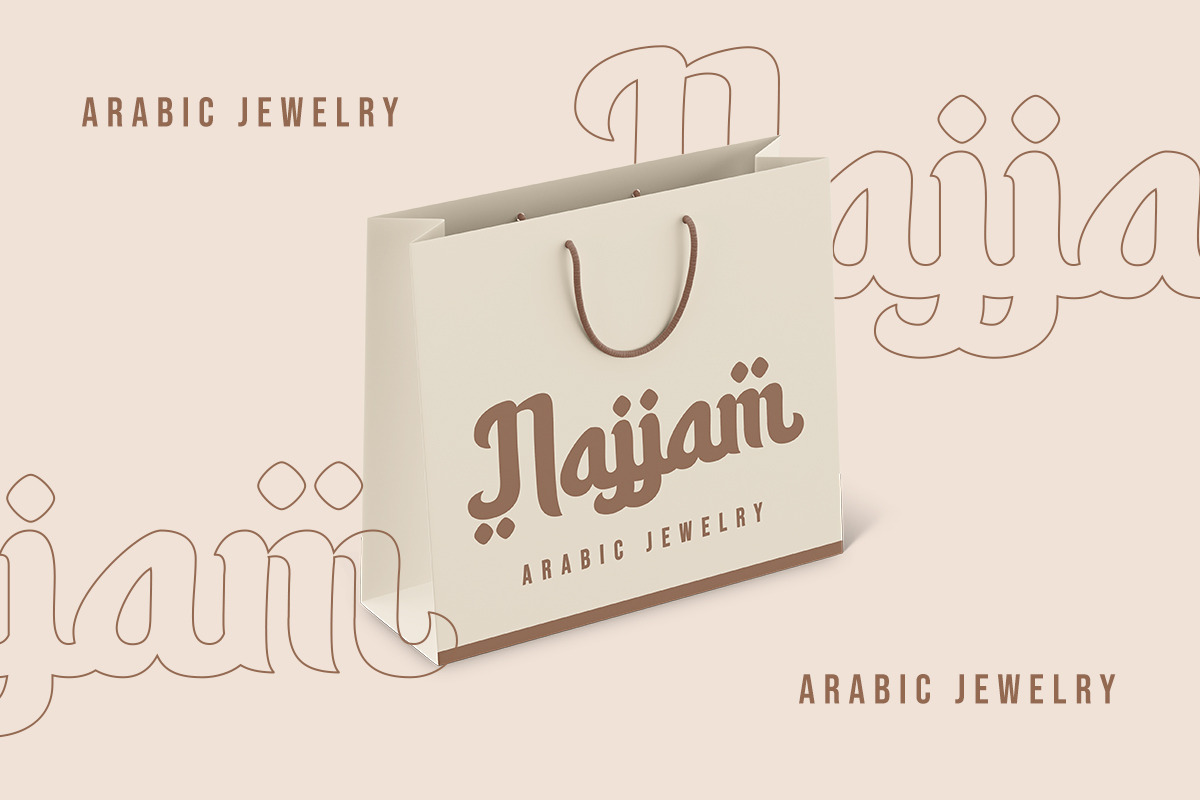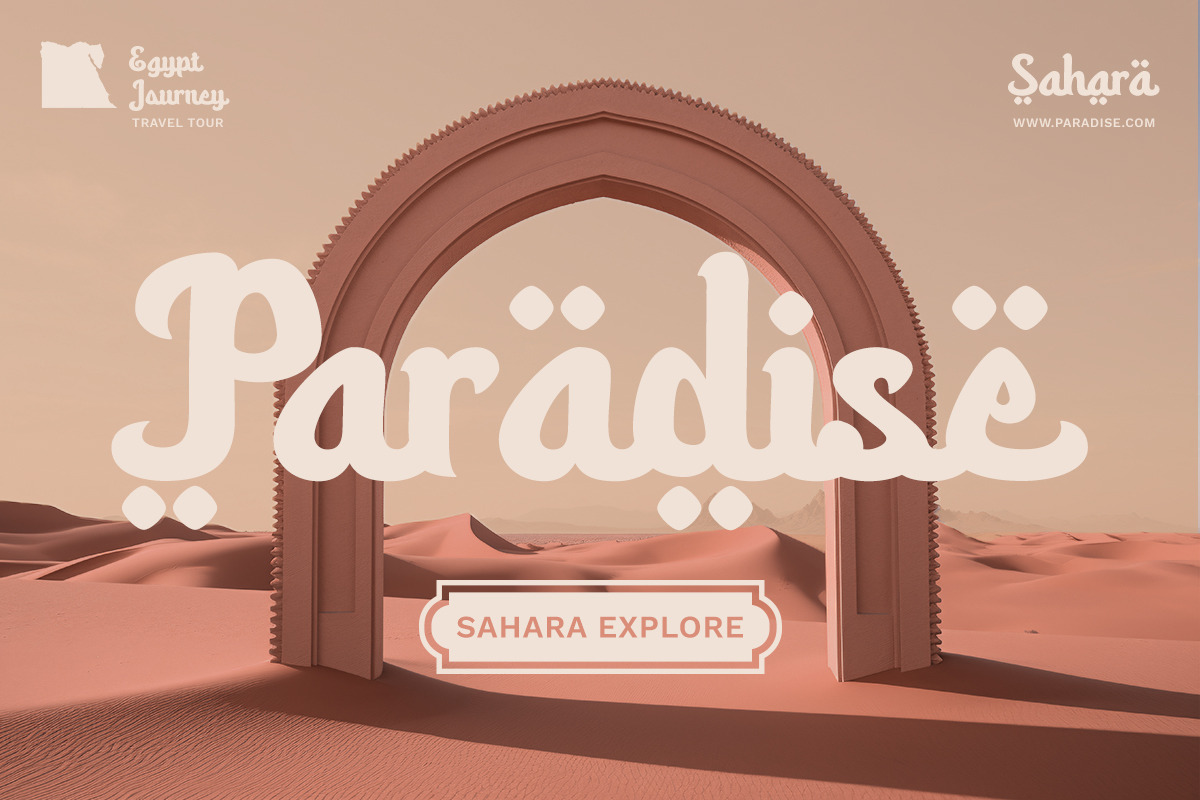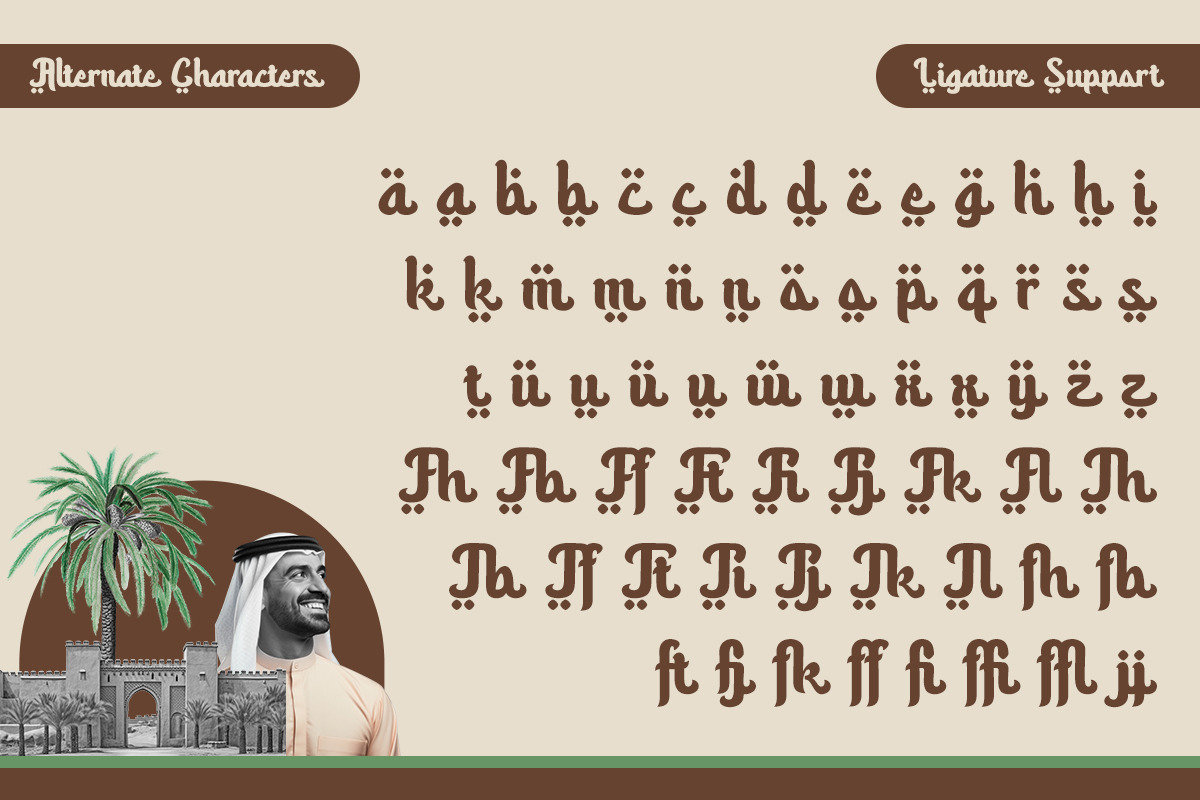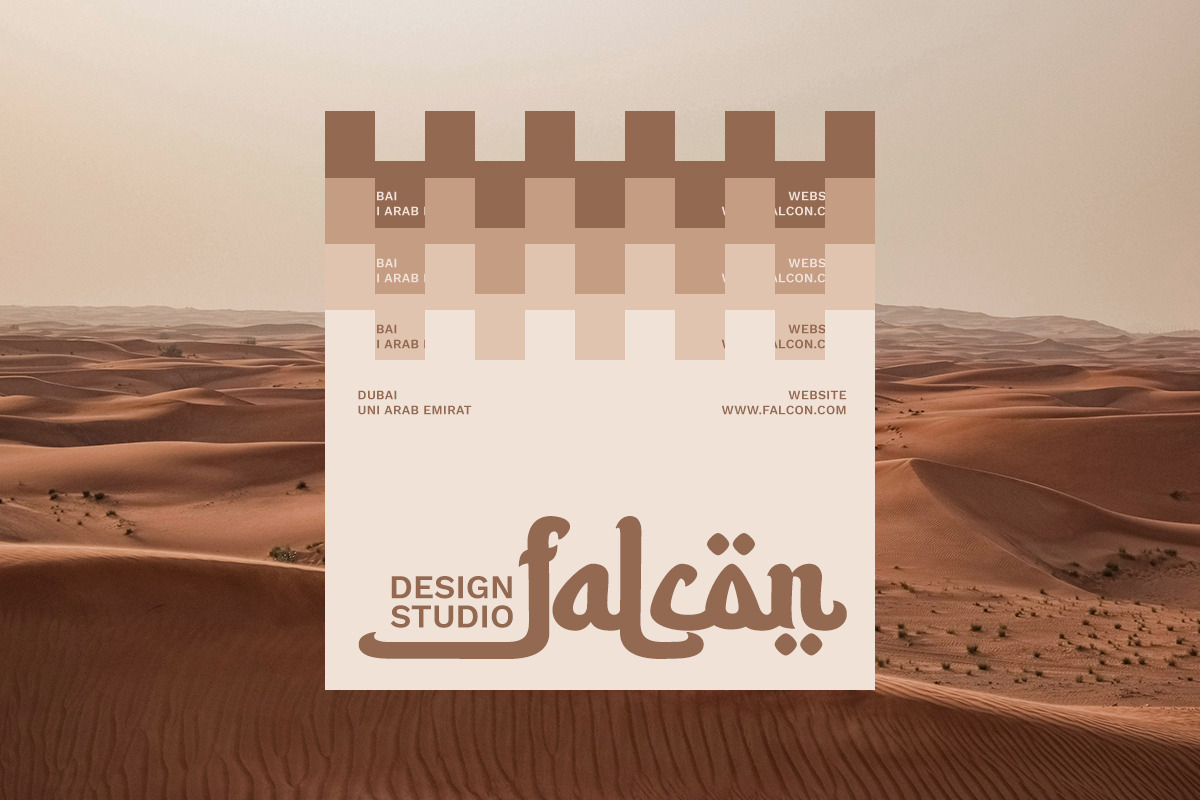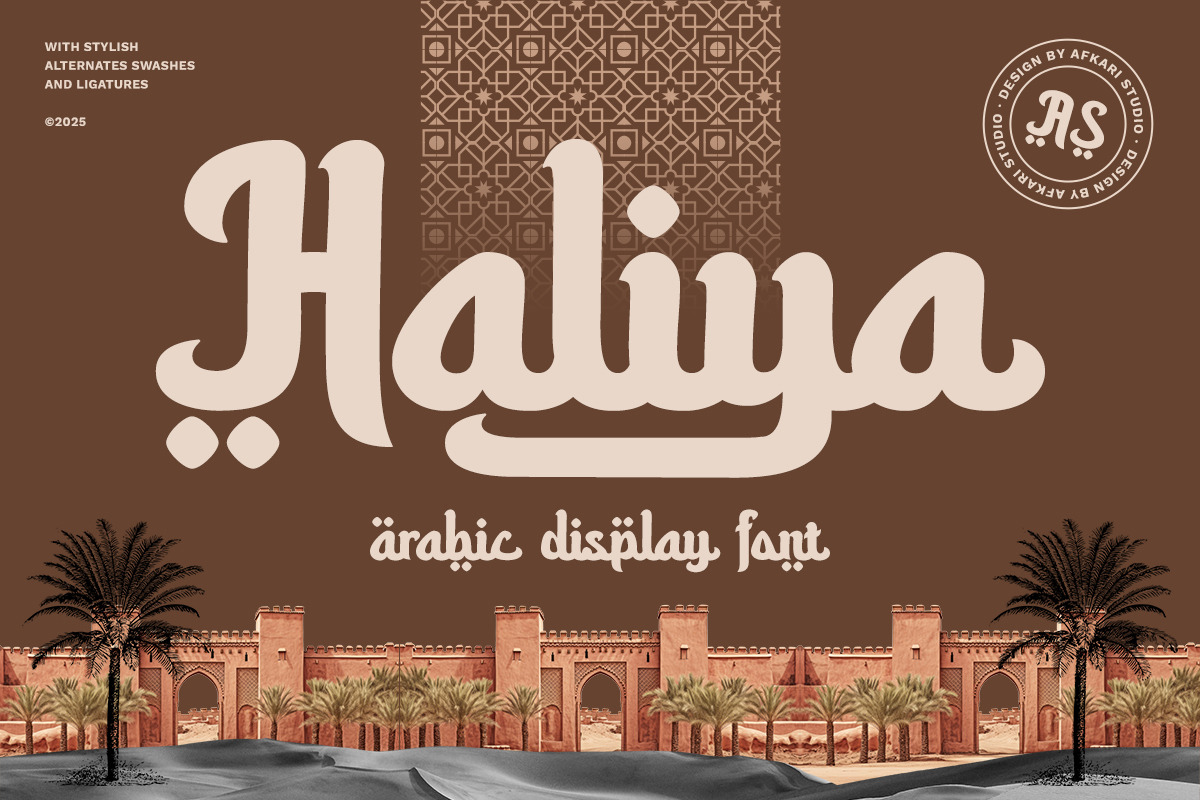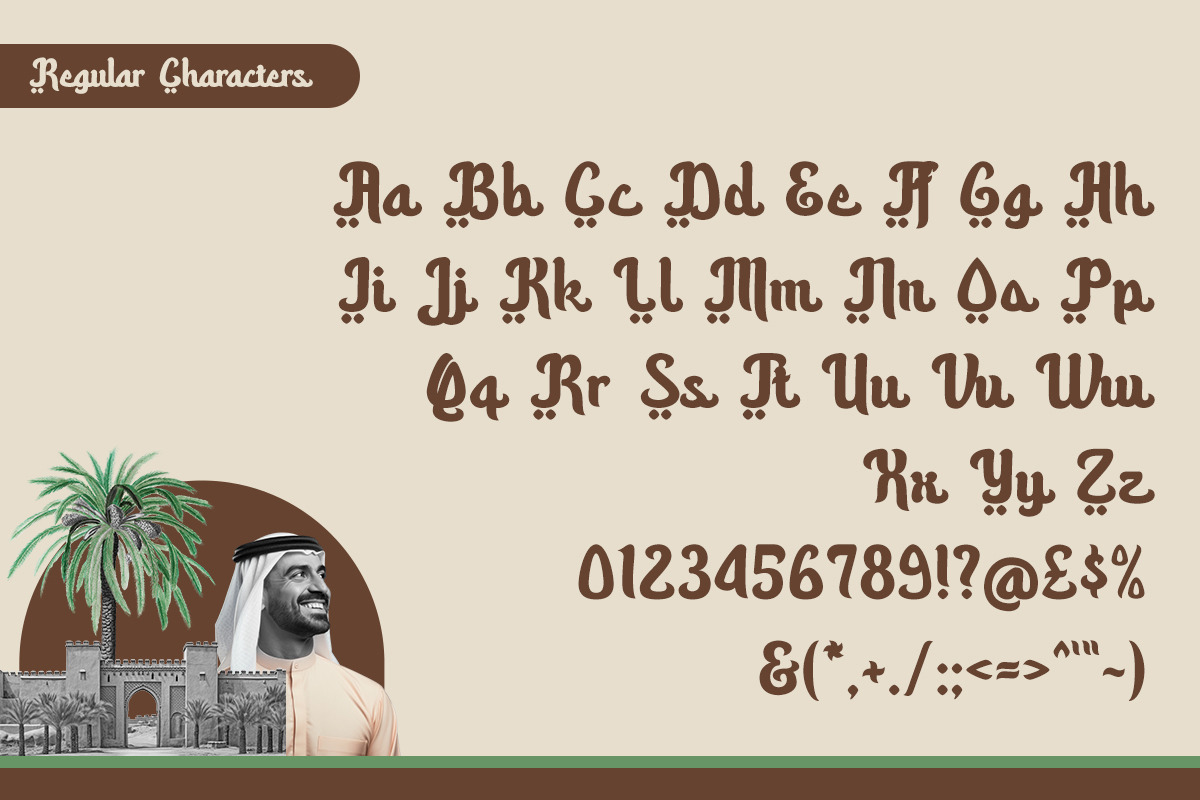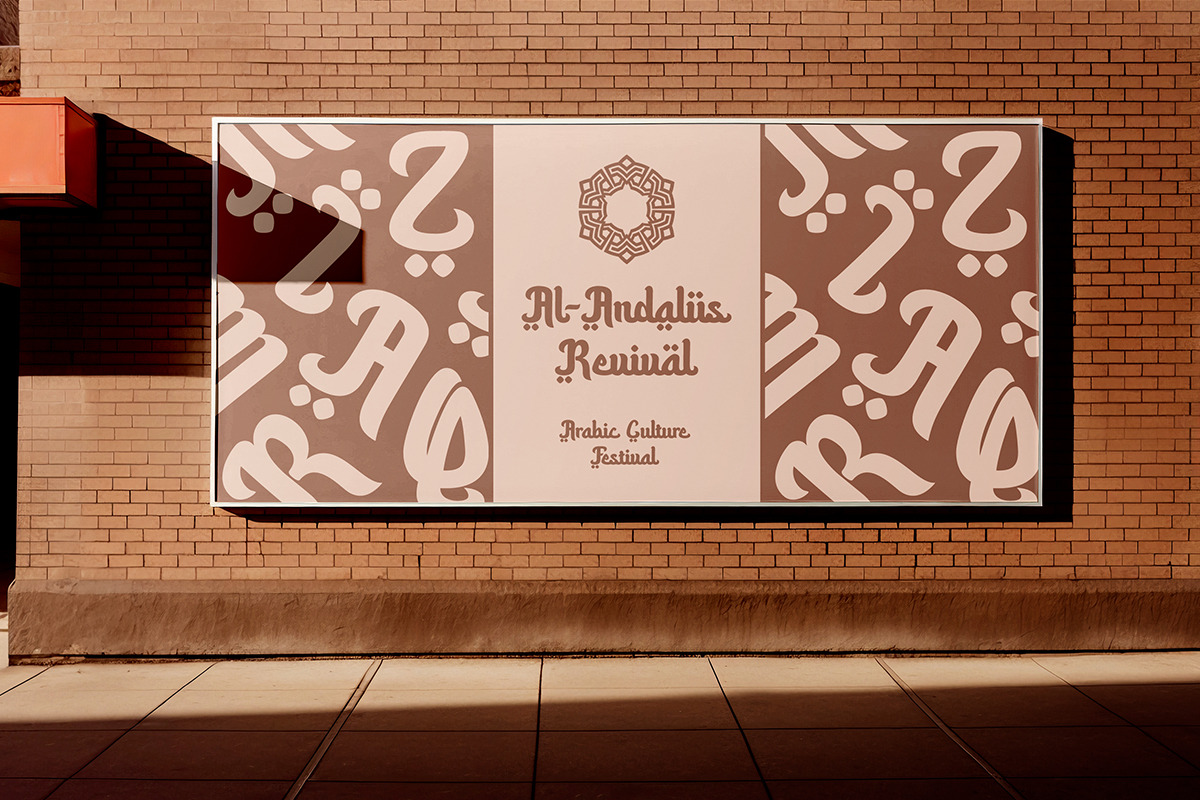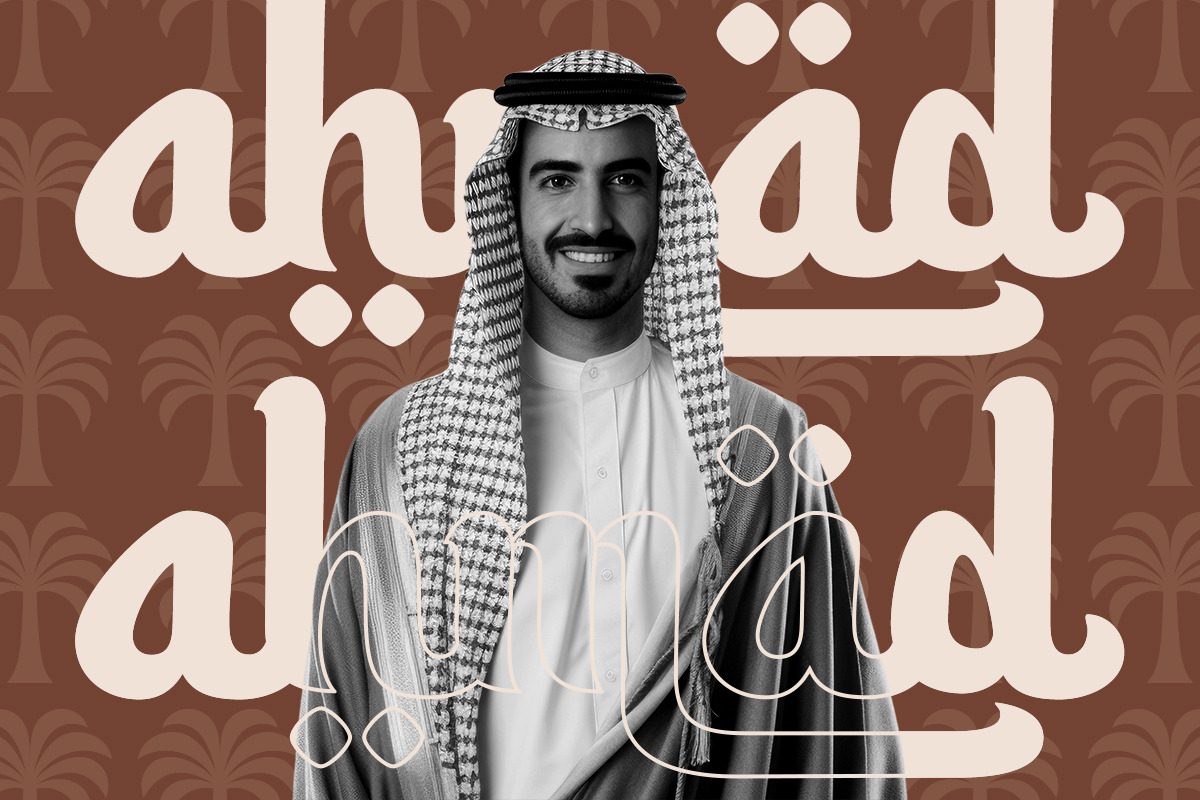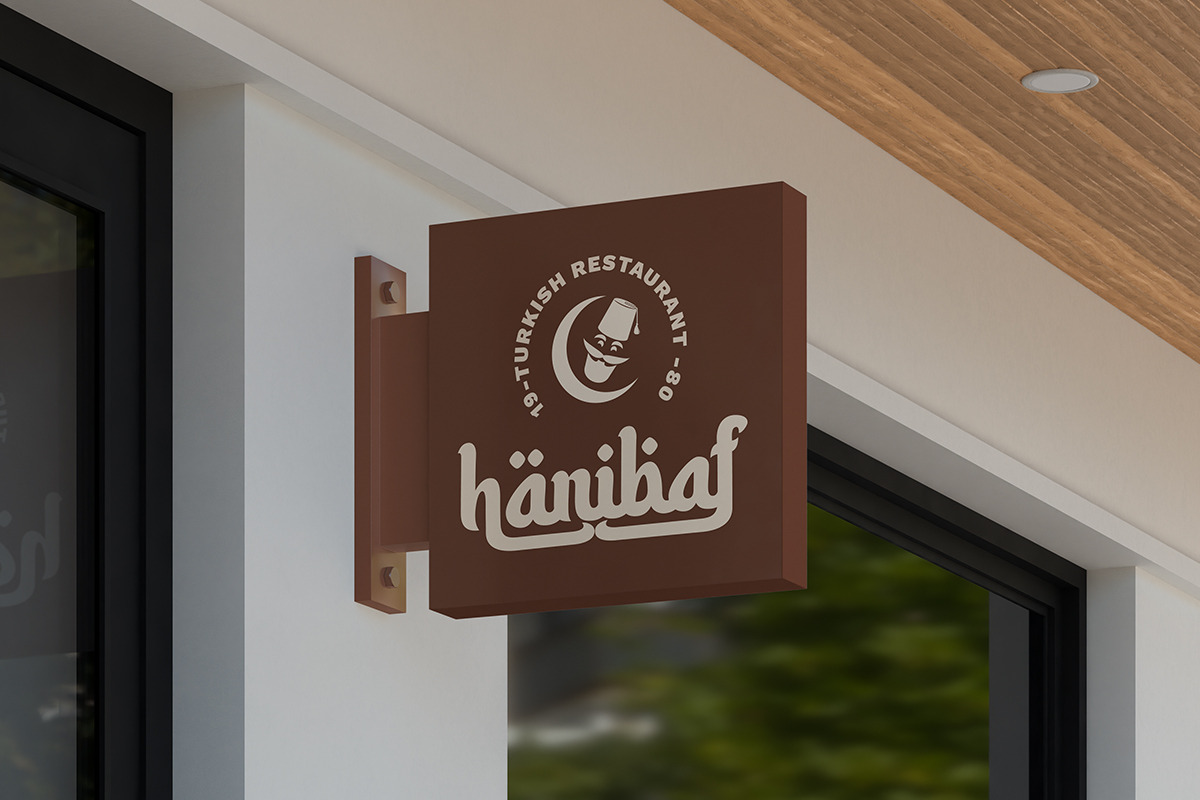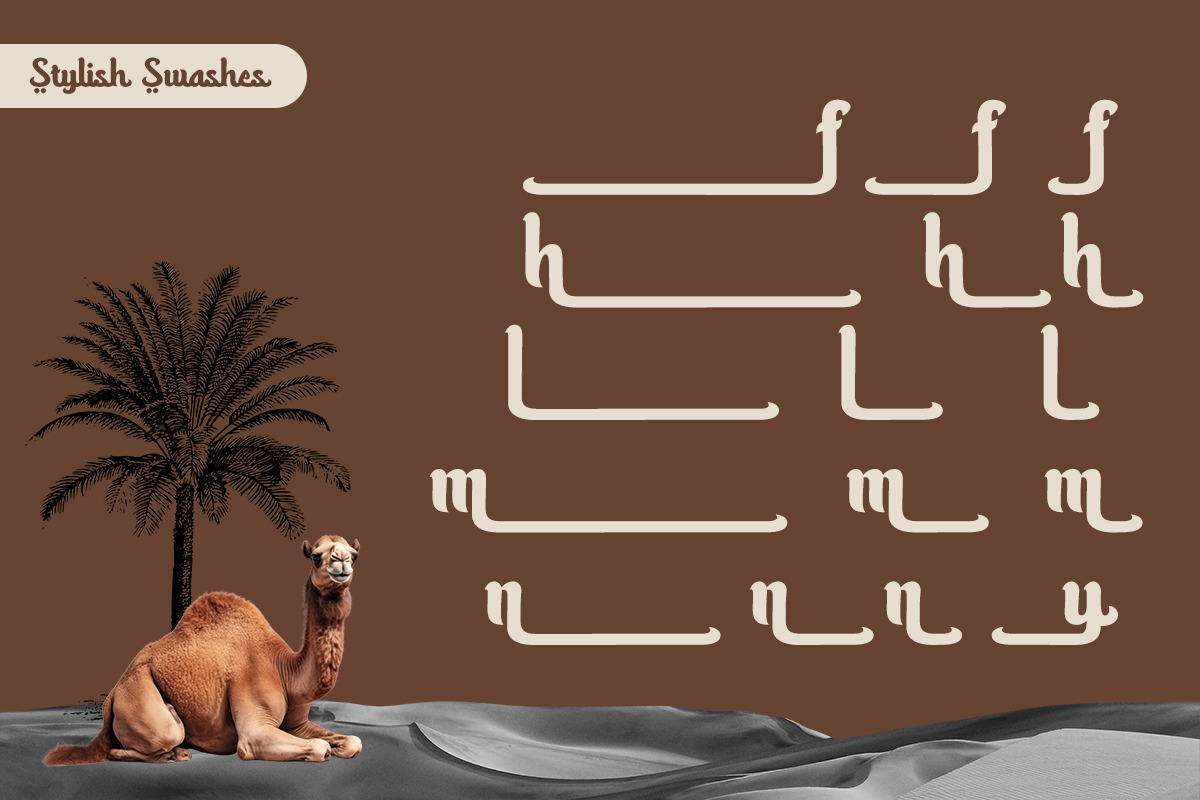
Haliya - Arabic Font Style Typeface
Haliya is an elegant Arabic-style typeface designed to bring the beauty of traditional Arabic calligraphy into modern design. With its fluid curves, graceful strokes, and intricate details, this font is perfect for branding, editorial design, packaging, and Islamic-themed projects.
Inspired by Middle Eastern aesthetics, Haliya combines authentic Arabic letterforms with a contemporary touch, making it ideal for luxury branding, Ramadan campaigns, halal products, and cultural designs. Whether you're crafting logos, social media graphics, or invitation cards, Haliya adds a sophisticated and artistic feel to your work.
Features;
- Uppercase, Lowercase, Number, and Punctuation
- Special Alternates and ligatures
Elevate your designs with Haliya – where Arabic heritage meets contemporary creativity! 🌙